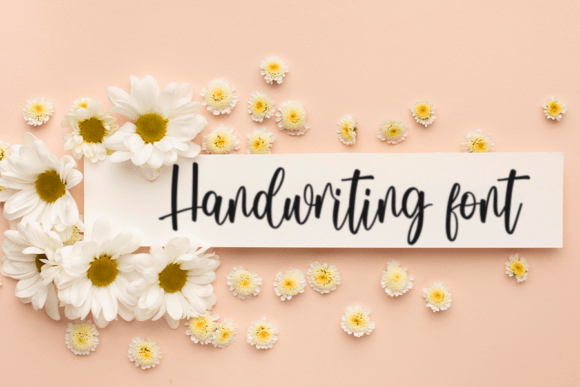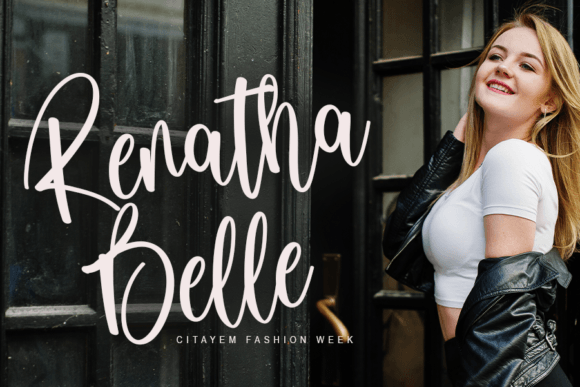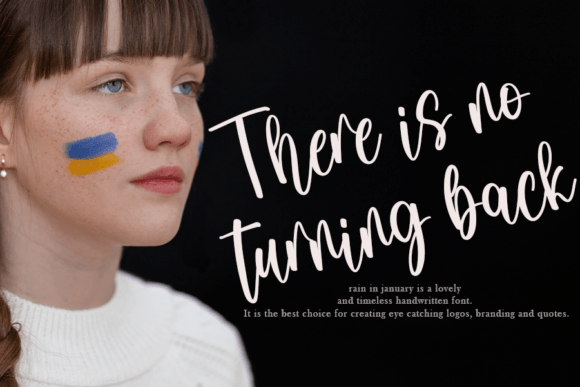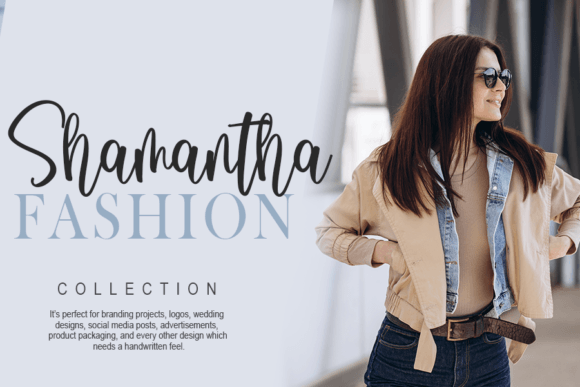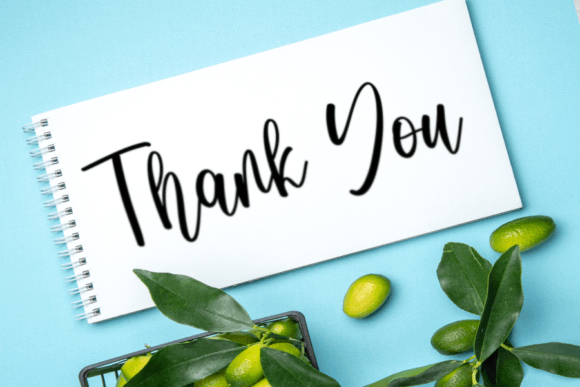
Rain in January Font – Free Download
Introduction to Rain in January Font
Rain In January is a stylish handwritten font with a contemporary atmosphere and impeccable form, inspired by timeless classic calligraphy.
Balanced and varied, this font was designed to enhance the beauty of your projects .
Key Features of Rain in January Font
Why Choose Rain in January Font?
Rain in January Font offers exceptional quality and versatility, making it a valuable addition to your design toolkit. Whether you’re creating for personal projects or commercial use, Rain in January Font delivers professional results.